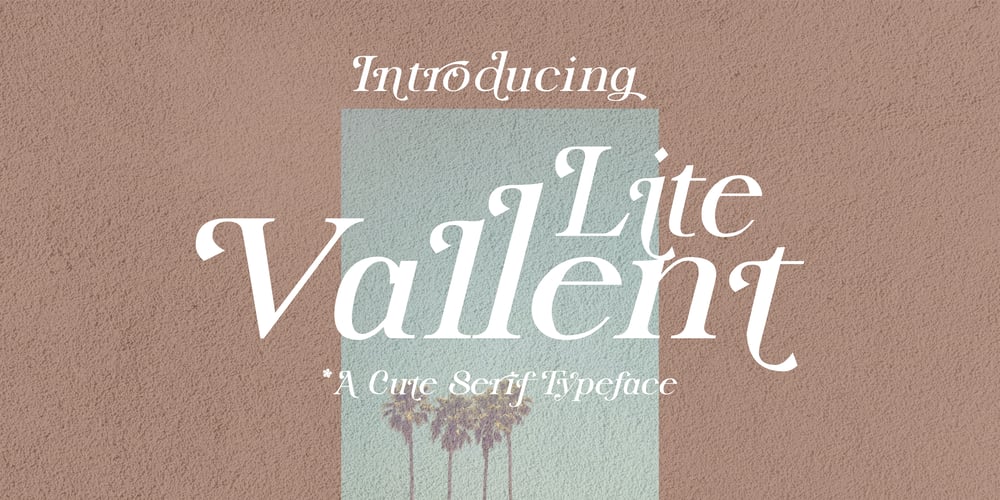
Lite Vallent Font Family was designed by Zamjump and published by Zamjump. Lite Vallent contains 1 styles and family package options. Introducing Lite Vallent, a delightful serif typeface designed to evoke the charming nostalgia of retro aesthetics with a cute and playful twist. Perfectly suited for branding projects, logos, quotes, and various design applications, Lite Vallent combines classic serif elements with whimsical details, creating a distinctive and versatile typeface. Balanced strokes give it a friendly and approachable feel, ideal for adding character and personality to your designs. Whether you’re crafting a vintage-inspired logo, designing eye-catching headlines, or creating captivating quotes, Lite Vallent brings a touch of retro elegance and modern charm to every project.